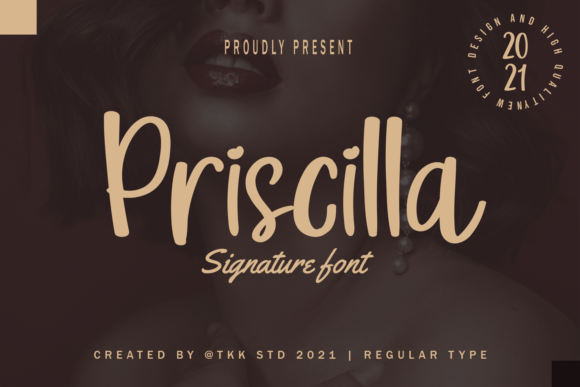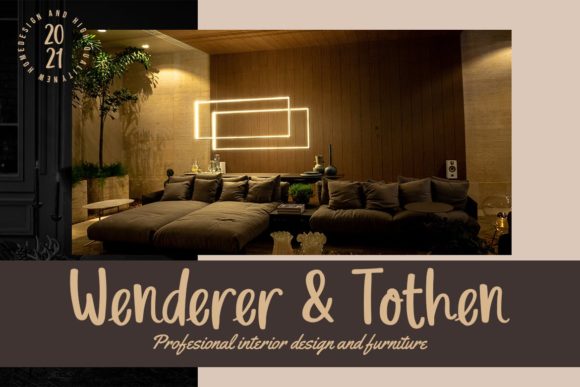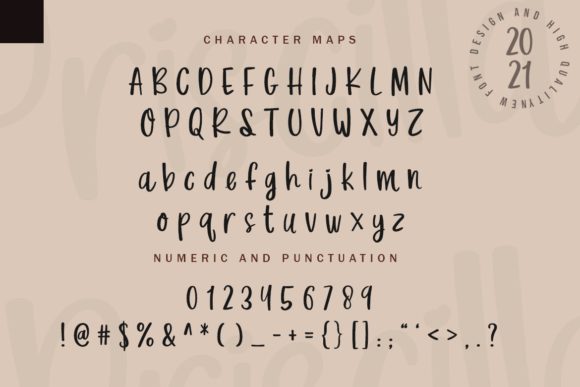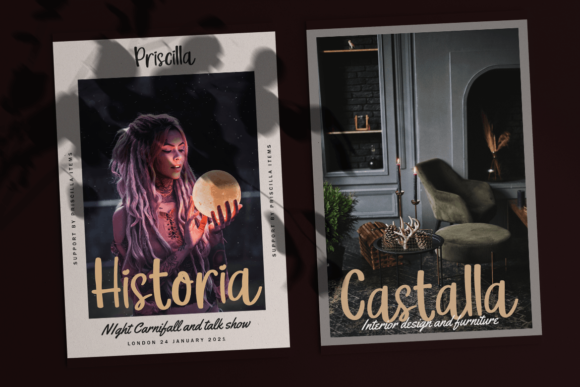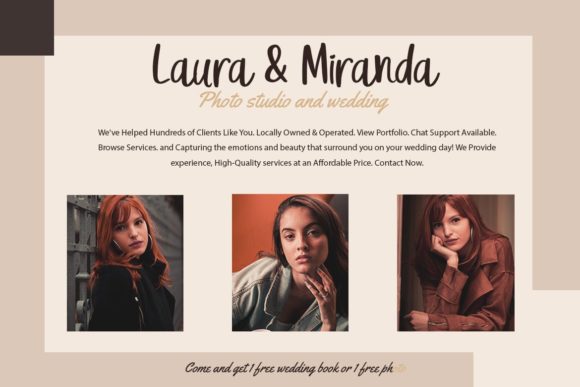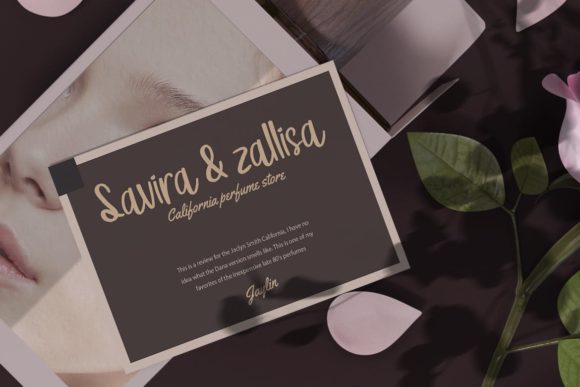
About Priscilla Font
Priscilla is a flowing and versatile paint brush script font. This font is neatly crafted and highly detailed. Whatever the topic, this font will be a wonderful asset to your font library, as it has the potential to enhance any creation.